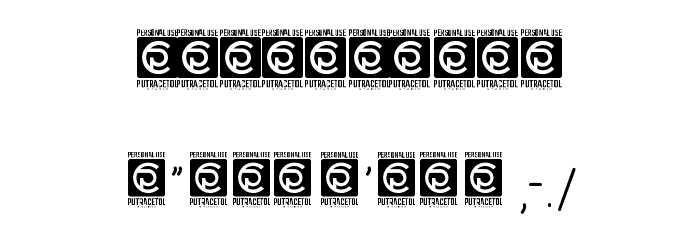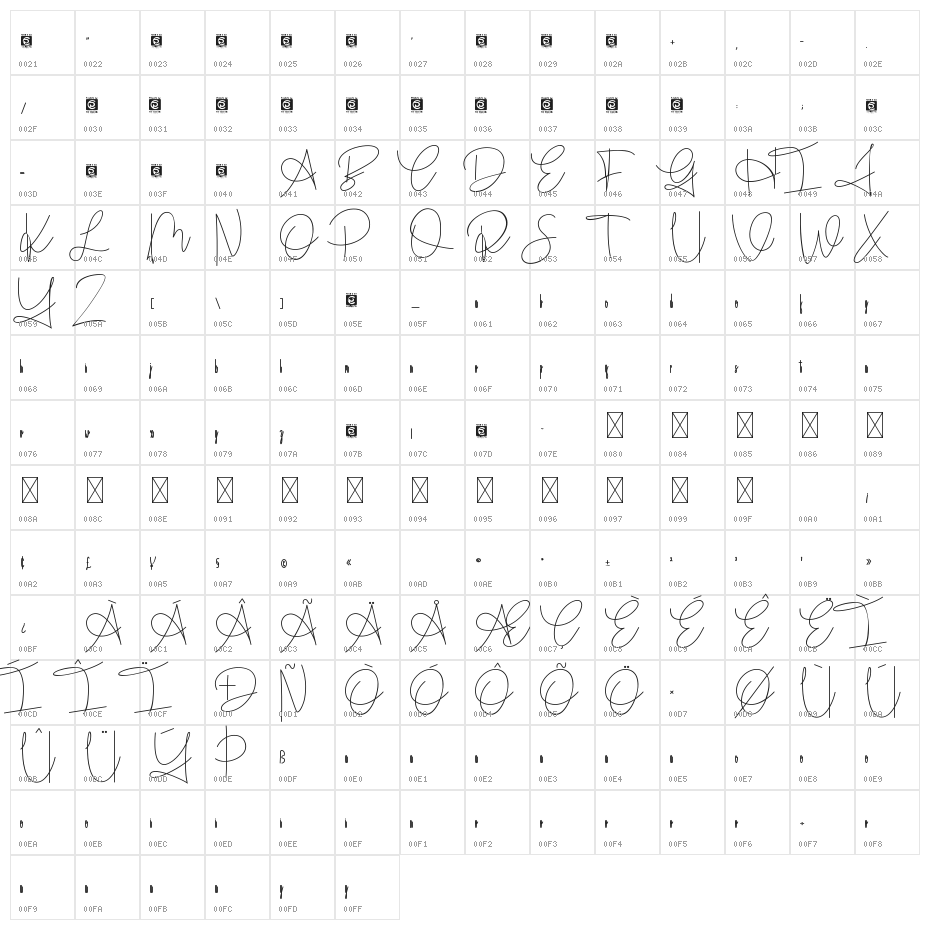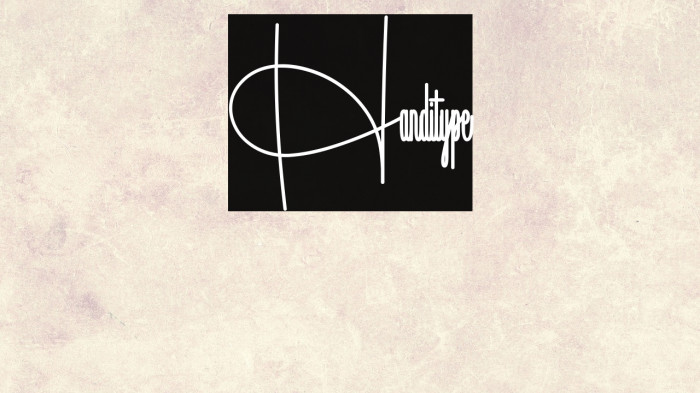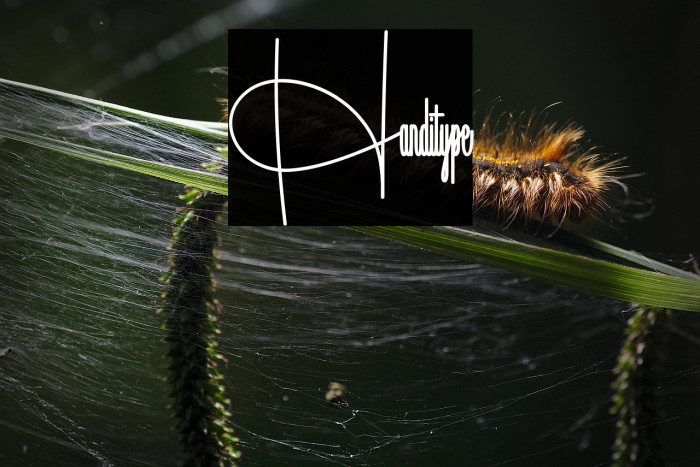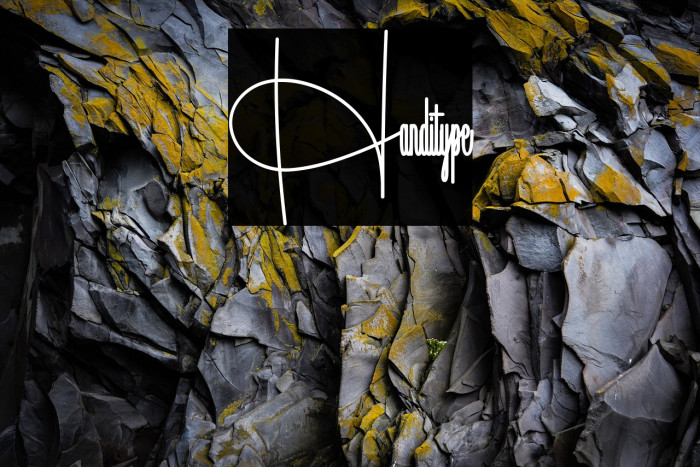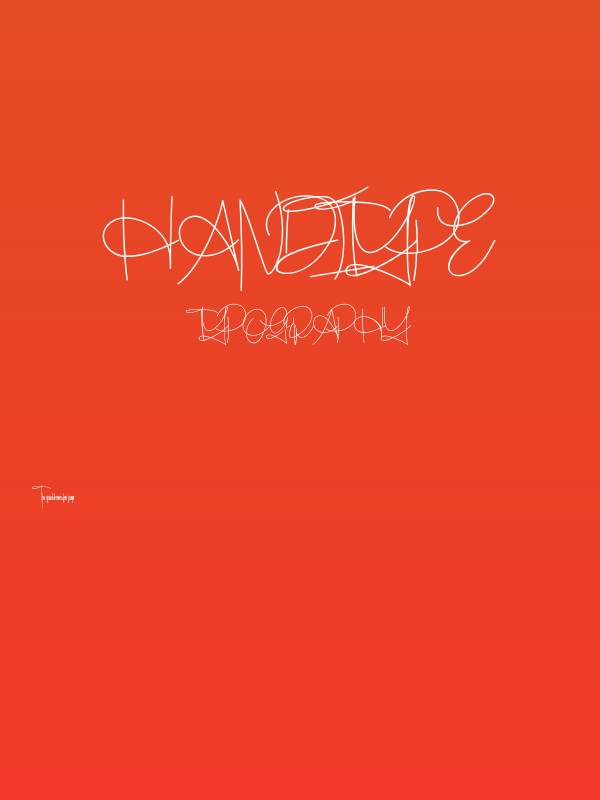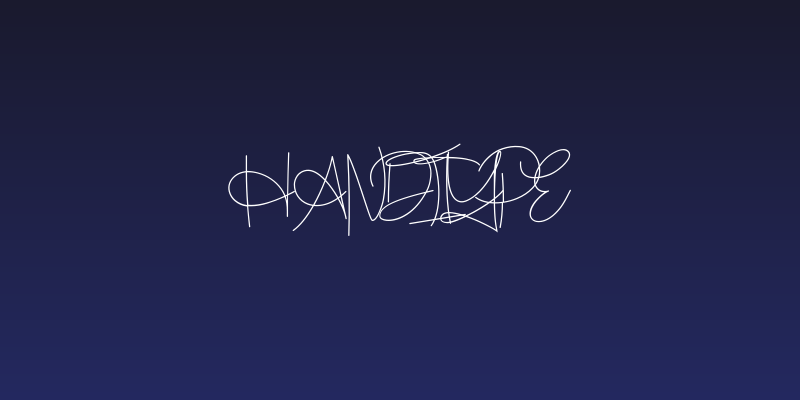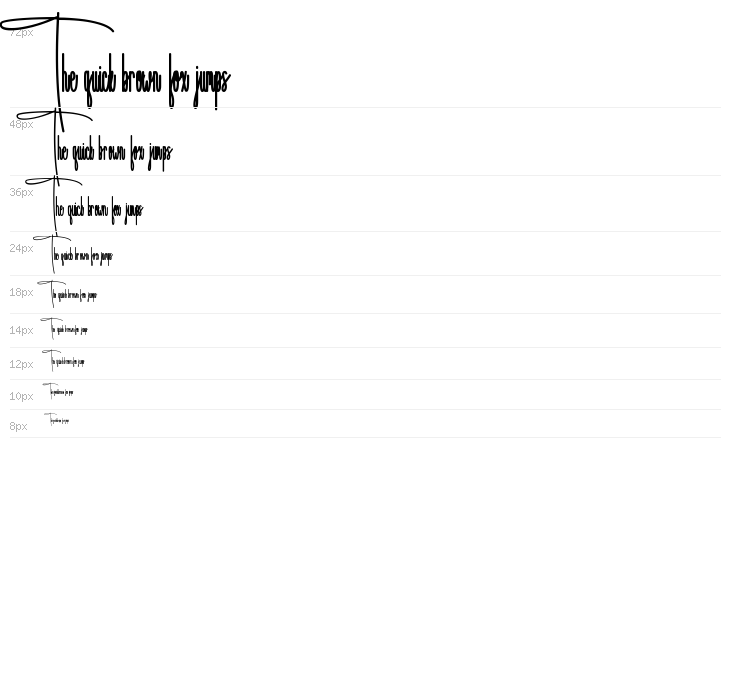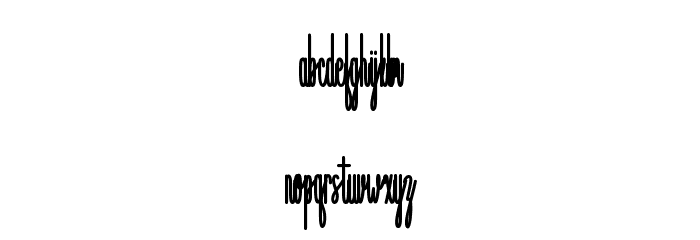
Handitype Font
Handitype Description
This font features a highly decorative and artistic style, characterized by its intricate and flowing script. The uppercase letters are particularly elaborate, with exaggerated loops and swirls that give it a whimsical and playful appearance. The lowercase letters maintain a more consistent flow, though they still exhibit a unique flair. This font is ideal for creative projects where a touch of elegance and personality is desired. Its distinctive style makes it suitable for invitations, greeting cards, and other artistic endeavors. The font's overall design is both captivating and expressive, making it a standout choice for those looking to add a personal touch to their work.